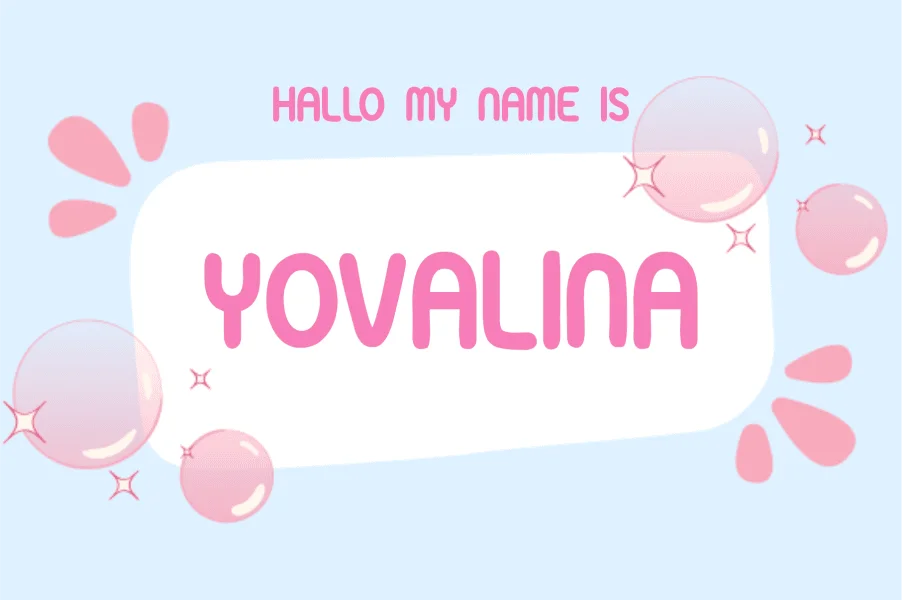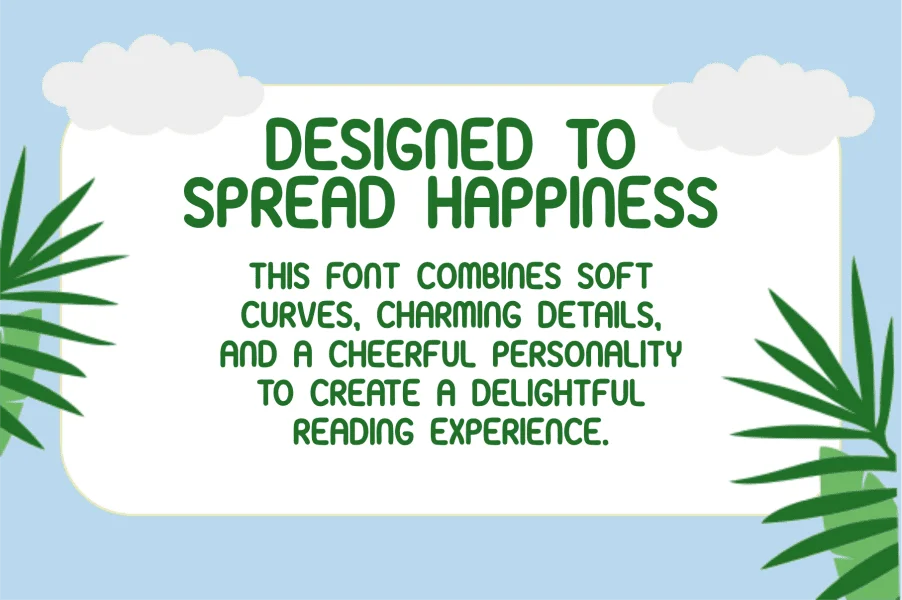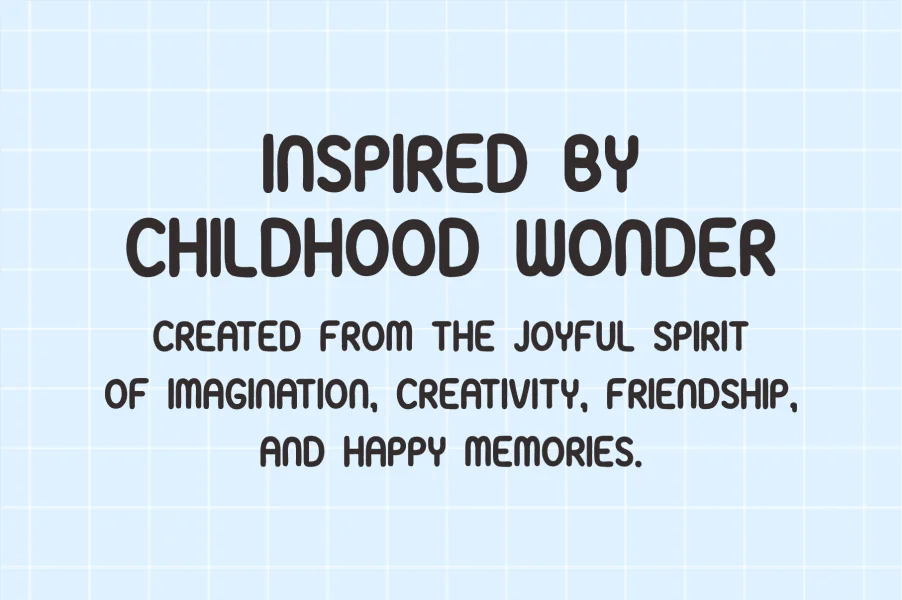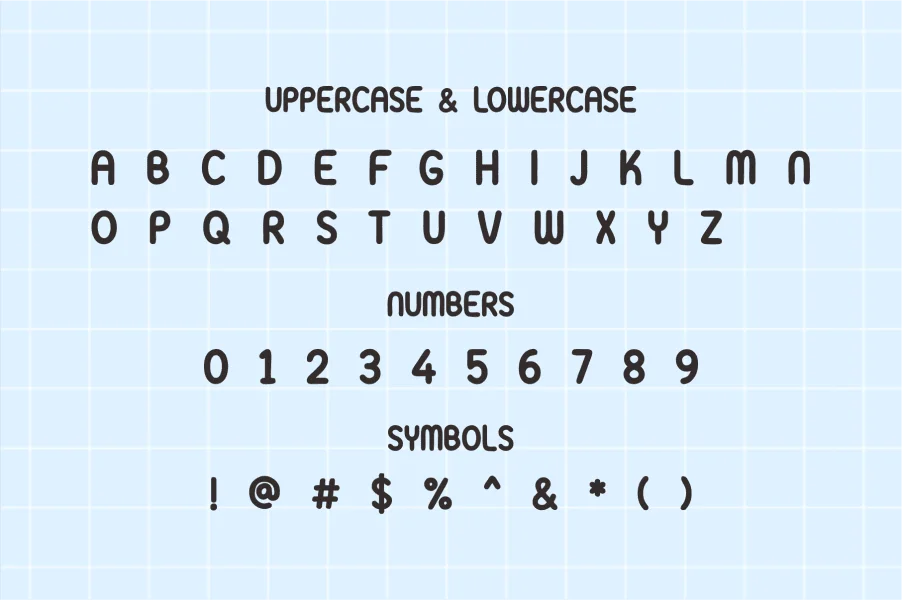
Yovalina Dream is a playful, rounded display typeface that radiates a cheerful and friendly personality. Characterized by its soft, pillowy curves and uniform line weight, the typeface establishes a warm, approachable rhythm. Its structure is defined by tall, condensed proportions that keep the letters compact yet highly legible, while the generous rounding on all terminals and corners gives the text a gentle, bubble-like texture. Inspired by childhood wonder, the design combines a sense of innocence with a clean, modern geometric foundation.
This typeface is perfectly suited for projects requiring a touch of joy and whimsy, such as children's book covers, toy packaging, and playful branding campaigns. Its friendly, soft appearance makes it an excellent choice for educational materials, birthday invitations, and creative social media graphics. Whether used for bold, outlined headlines or friendly subheadings, it brings a lighthearted, imaginative energy to any layout.